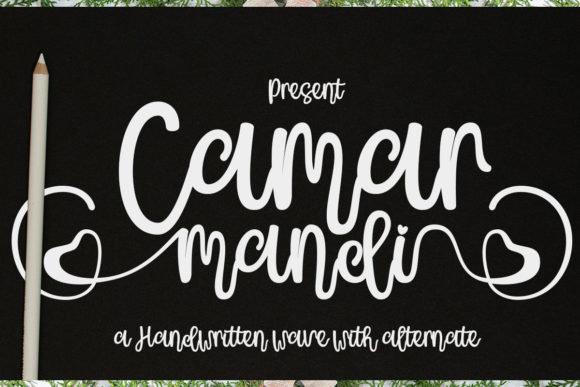
Journey into the world of Camar Mandi, a captivating script font family that will awaken your creative spirit. Crafted with meticulous attention to detail by the talented edwar.sp111, Camar Mandi is the perfect font for igniting romance and expressing your heartfelt emotions.
Indulge in the enchanting beauty of Camar Mandi's flowing lines and delicate curves. Its unique style adds a touch of whimsy and elegance to any design, making it the ideal choice for crafting love letters, wedding invitations, heartfelt cards, and any project that calls for a touch of romance.
With its PUA encoding, Camar Mandi grants you effortless access to a treasure trove of glyphs and swashes, empowering you to unleash your creativity and add intricate details to your designs.
Fall head over heels for Camar Mandi's versatility. Whether you're a seasoned designer or just starting your creative journey, this font family will captivate your imagination and help you bring your artistic visions to life. From graceful logos and branding to eye-catching social media posts and captivating marketing materials, Camar Mandi is your perfect companion.